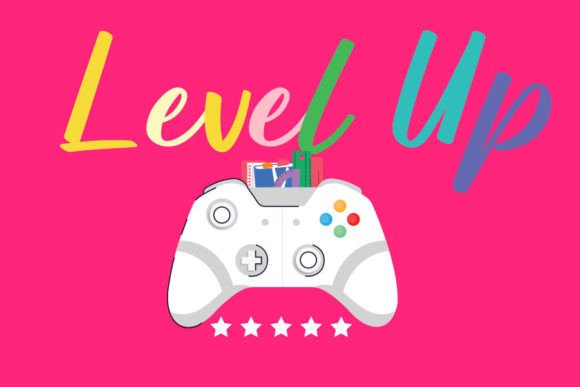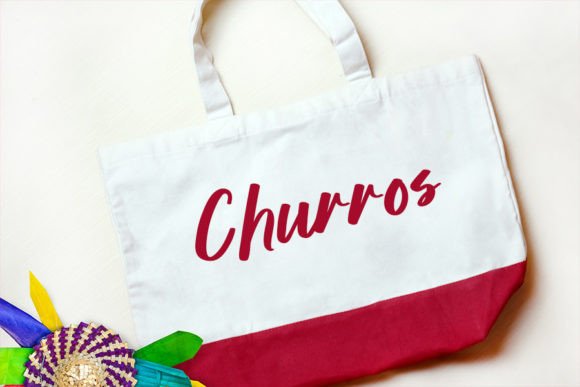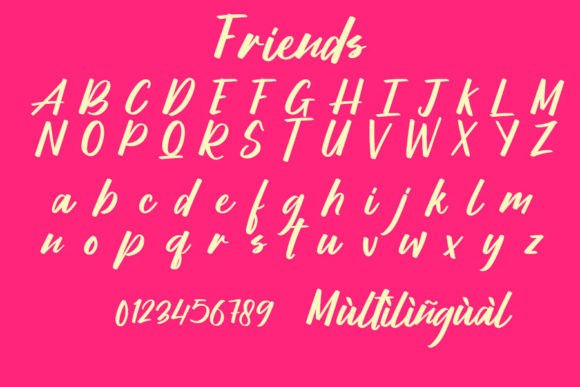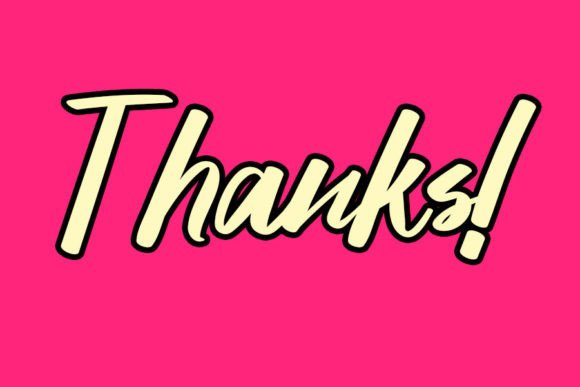
Introducing Friends Font: The Perfect Script Font for Personalized Designs
Are you a designer or crafter looking for a font that adds a touch of elegance and sophistication to your designs? Look no further than Friends Font, a delicate and stylish script font that’s perfect for a variety of projects requiring a personalized style. In this article, we’ll take a closer look at Friends Font, its features, and how you can use it to elevate your designs.
What is Friends Font?
Friends Font is a beautiful script font that’s designed to add a touch of whimsy and romance to your designs. With its delicate strokes and elegant lettering, it’s perfect for creating personalized designs that stand out from the crowd. Whether you’re designing wedding invitations, thank you cards, greeting cards, or logos, Friends Font is the perfect choice.
Key Features of Friends Font
• Delicate and Stylish: Friends Font features delicate strokes and elegant lettering that adds a touch of sophistication to your designs.
• Script Font: Friends Font is a script font that’s perfect for creating personalized designs that require a touch of elegance.
• Versatile: Friends Font can be used for a variety of designs, including wedding invitations, thank you cards, weddings, greeting cards, logos, and more.
• Easy to Read: Despite its delicate nature, Friends Font is easy to read, making it perfect for designs that require a personal touch.
How to Use Friends Font in Your Designs
Friends Font is a versatile font that can be used in a variety of designs. Here are some ideas to get you started:
• Wedding Invitations: Add a touch of elegance to your wedding invitations with Friends Font. Use it to create beautiful and personalized invitations that set the tone for your special day.
• Thank You Cards: Show your appreciation with beautiful thank you cards designed with Friends Font. It’s the perfect way to add a personal touch to your thank you notes.
• Greeting Cards: Create beautiful greeting cards for special occasions like birthdays, anniversaries, and holidays with Friends Font.
• Logos: Use Friends Font to create elegant and sophisticated logos for your business or brand.
Tips for Getting the Most Out of Friends Font
Here are some tips for getting the most out of Friends Font:
• Pair it with Other Fonts: Friends Font pairs well with other fonts, so don’t be afraid to experiment with different combinations to find the perfect look for your design.
• Use it in Combination with Images: Friends Font looks beautiful when paired with images, so consider using it in combination with photos or illustrations to create stunning designs.
• Experiment with Colors: Friends Font looks great in a variety of colors, so don’t be afraid to experiment with different colors to find the perfect look for your design.
Friends Font is a beautiful and versatile script font that’s perfect for designers and crafters looking to add a touch of elegance and sophistication to their designs. With its delicate strokes and elegant lettering, it’s perfect for creating personalized designs that stand out from the crowd. Whether you’re designing wedding invitations, thank you cards, greeting cards, or logos, Friends Font is the perfect choice. So why wait? Download Friends Font today and start creating stunning designs that showcase your personal style.